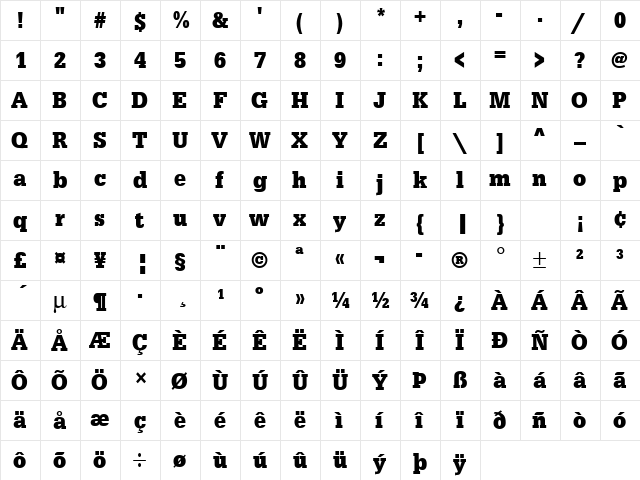
URWEgyptienneTExtNar Bold Font Preview
URWEgyptienneTExtNar Bold
Design Context for URWEgyptienneTExtNar Typeface
URWEgyptienneTExtNar takes a measured approach to typography — its balanced proportions and neutral character make it a reliable workhorse for both digital and print work. Its bold stroke weight gives it real presence on the page.